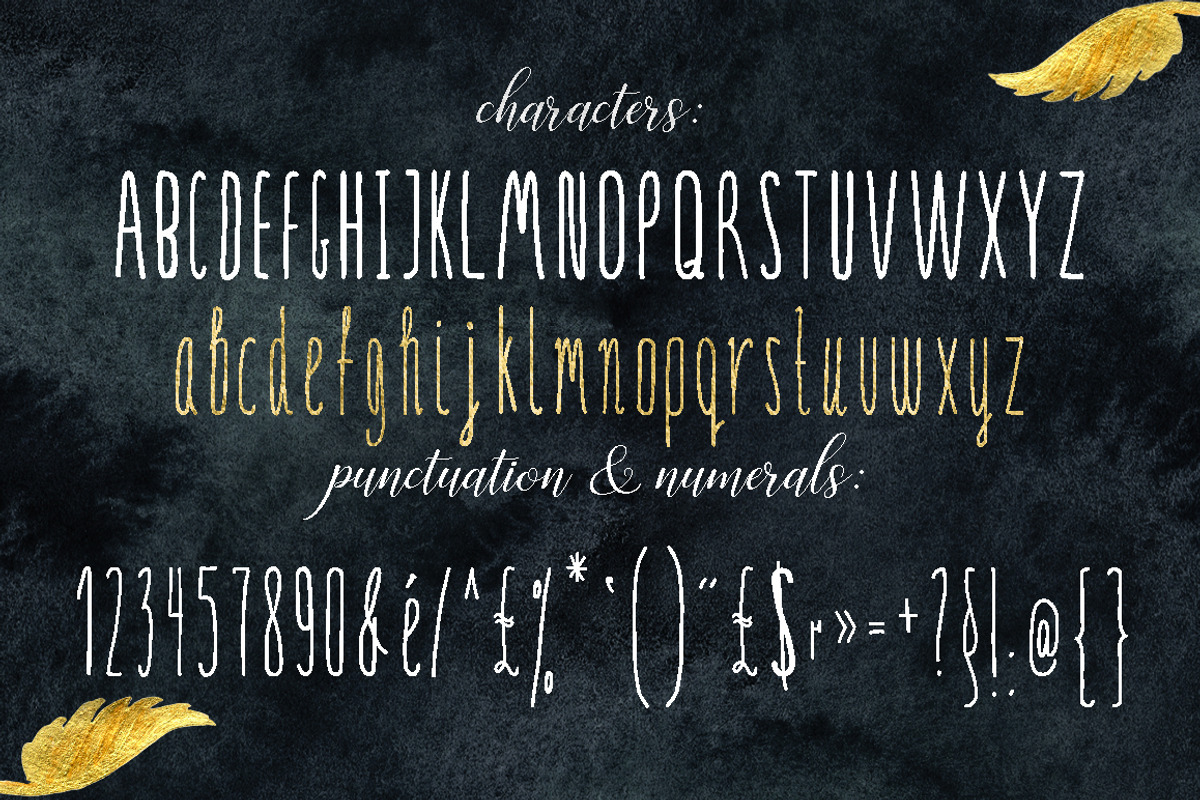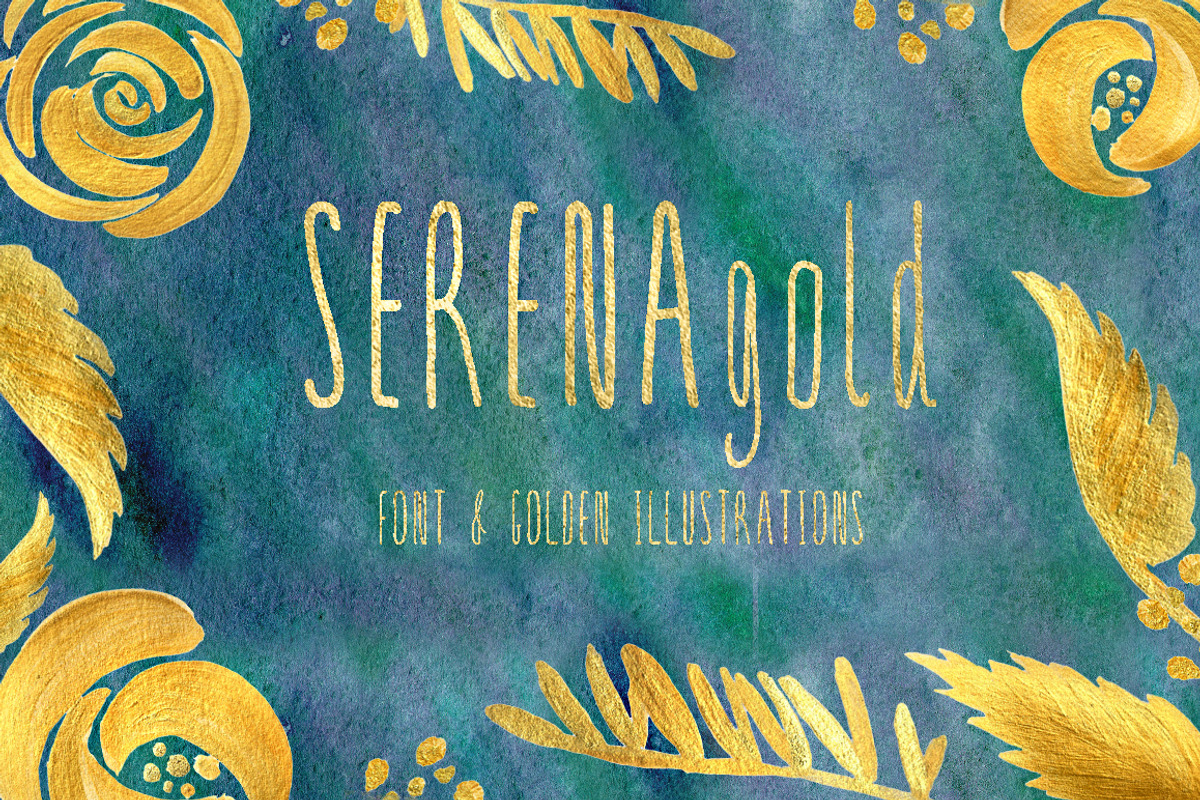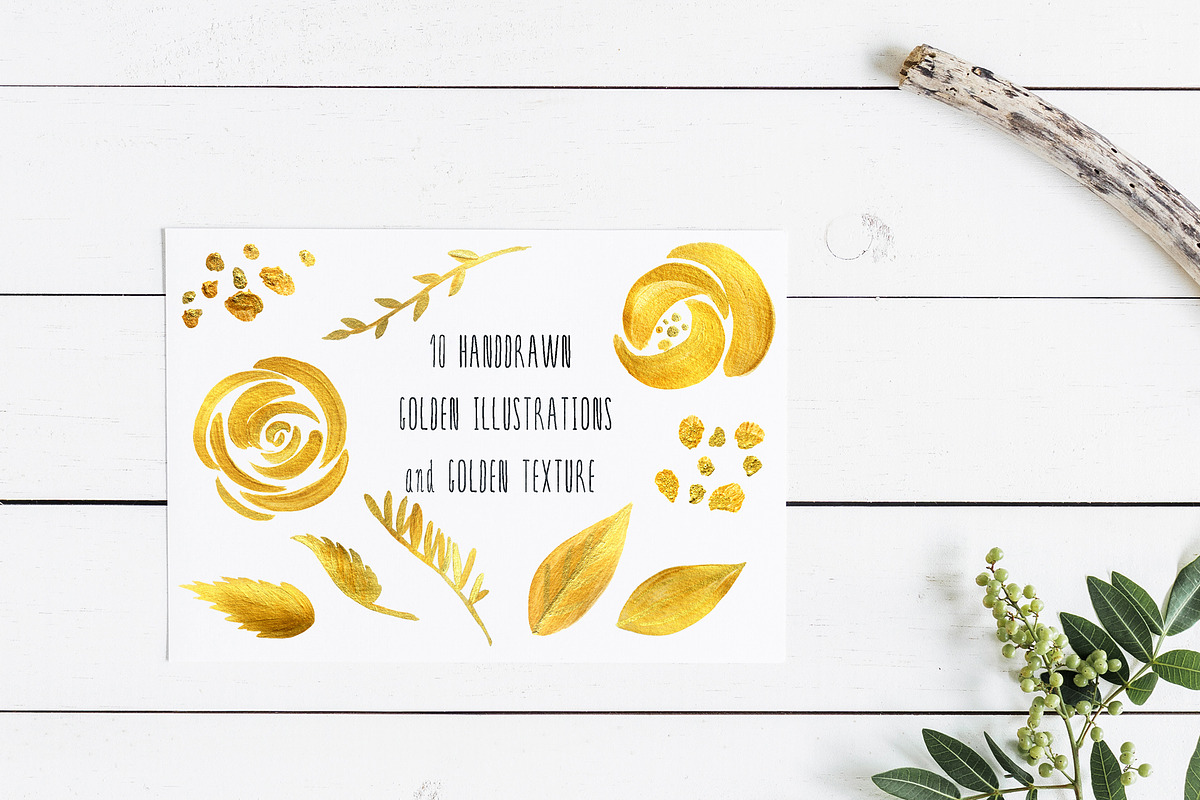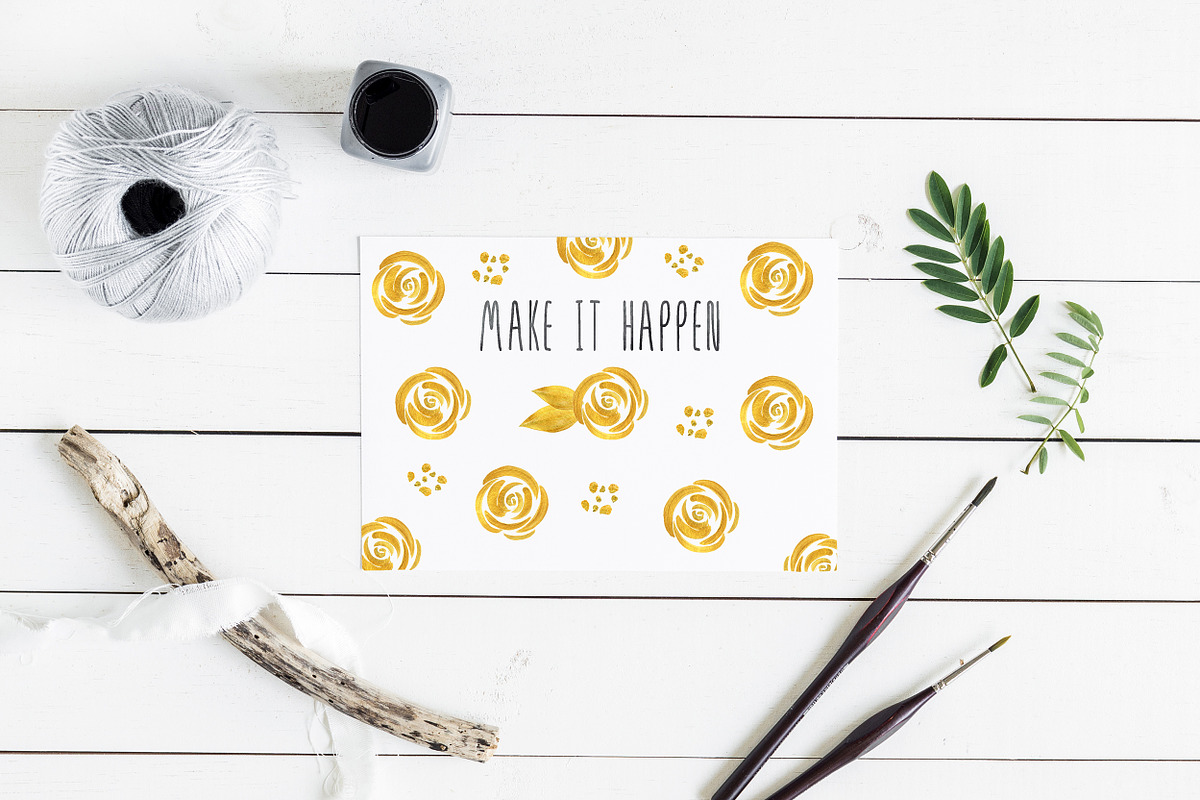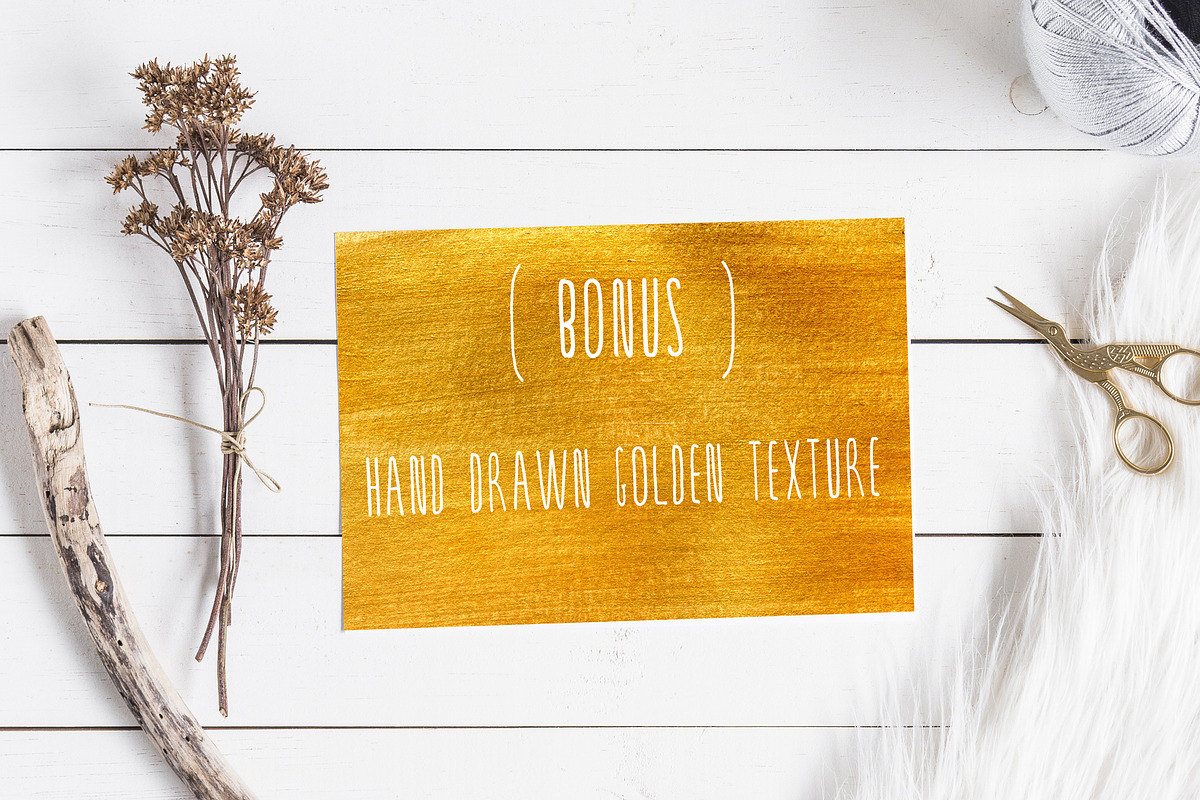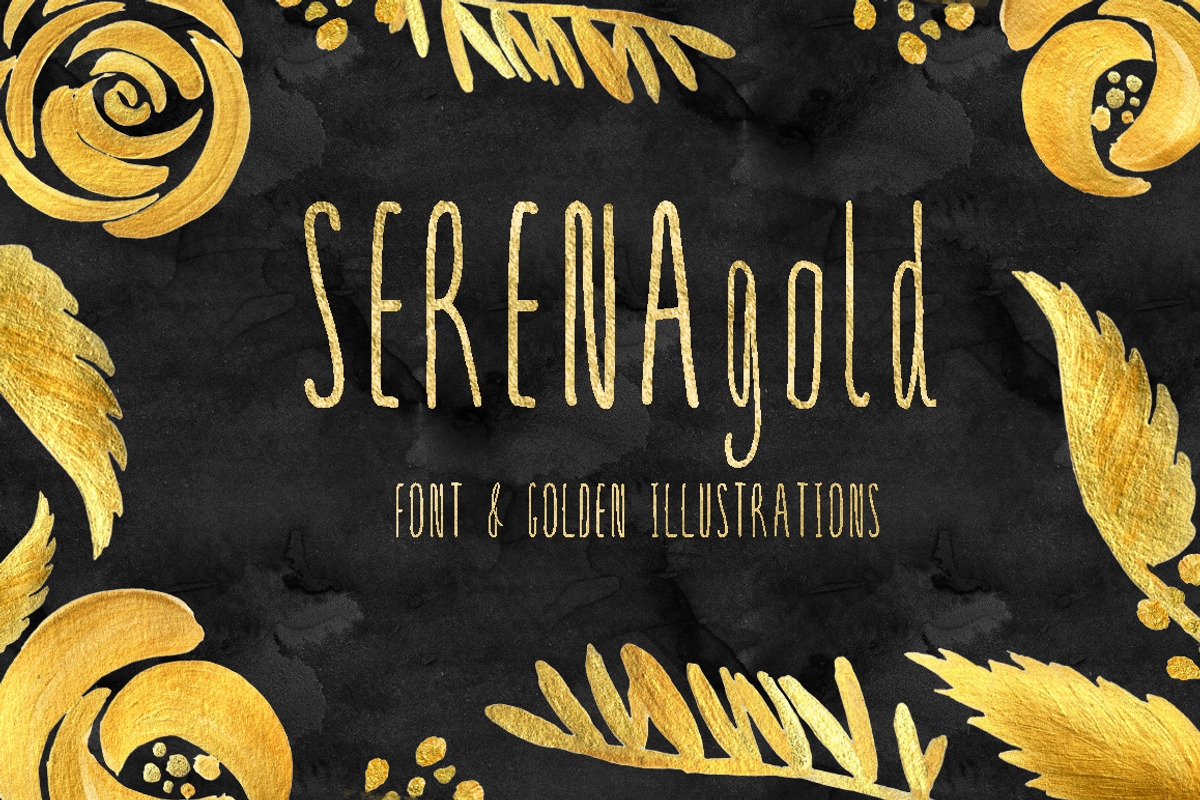
SERENA gold. Fine art font .
The handwritten font SERENAgold . This is generic, readable handwritten font, will works well in every kind of design.
It looks fantastic for branding, logos, and websites as well!
Add gold accents to your projects with 10 original hand drawn golden innustrations which will be ideal for branding, wedding invitations, logos...